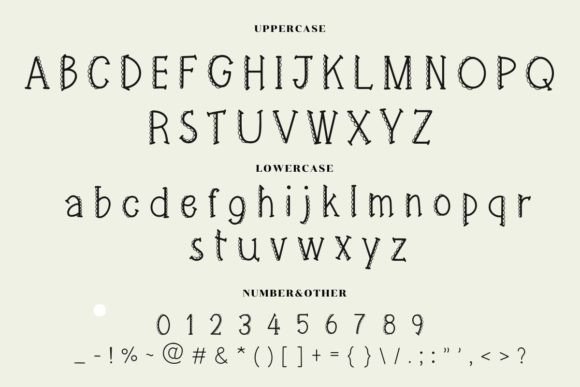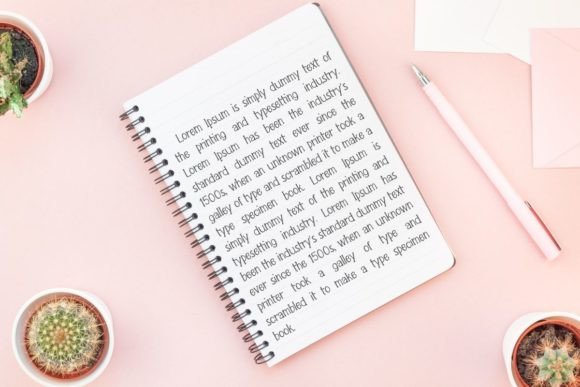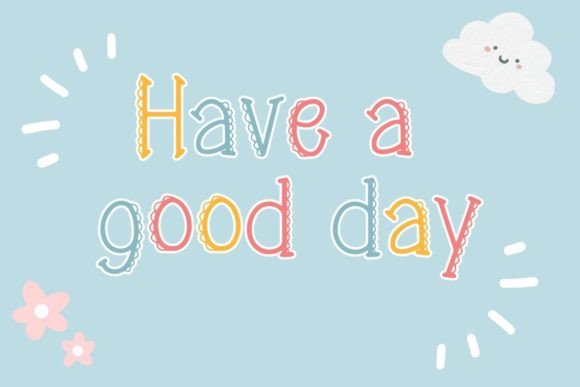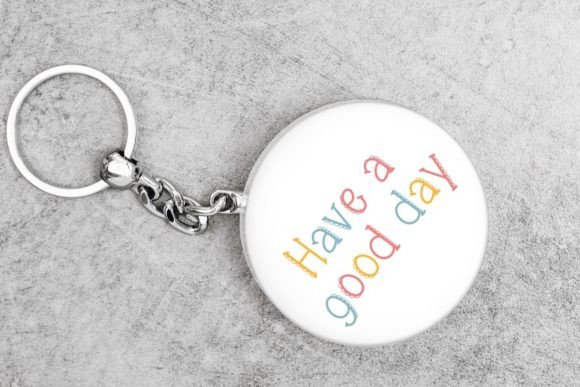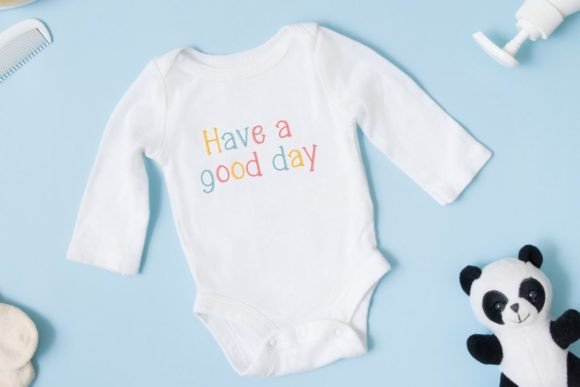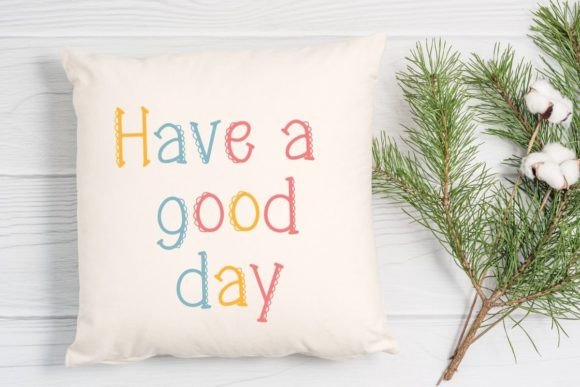
Dinosaur Font: The Cute and Groovy Serif Font for Retro Designs
Are you a designer or crafter looking for a font that adds a touch of cuteness and retro charm to your designs? Look no further than the Dinosaur Font! This adorable serif font is perfect for creating fun and playful designs that are sure to delight kids and adults alike.
What Makes Dinosaur Font So Special?
Dinosaur Font is a unique and quirky font that combines the charm of a serif font with a groovy and funny vibe. Its cute and endearing design makes it perfect for a wide range of projects, from back to school designs and kids’ crafts to birthday invitations and summer-themed designs.
Perfect for Retro-Inspired Designs
One of the standout features of Dinosaur Font is its retro charm. The font’s playful and whimsical design is reminiscent of classic designs from the 60s and 70s, making it perfect for adding a touch of nostalgia to your designs. Whether you’re creating t-shirt designs, stickers, or sublimations, Dinosaur Font is sure to add a fun and funky touch.
The versatility of Dinosaur Font is one of its greatest strengths. This font can be used for a wide range of design projects, including:
- Back to school designs: Create fun and engaging designs for school supplies, posters, and more.
- Kids’ designs: Perfect for children’s birthday parties, nursery decor, and kids’ clothing.
- Birthday invitations: Add a playful touch to your party invitations and make them stand out.
- Summer designs: Create fun and colorful designs for summer-themed projects, such as beach balls, sunglasses, and more.
- T-shirt designs: Add a groovy touch to your t-shirt designs and make them wearable art.
- Crafting: Use Dinosaur Font to add a personal touch to your craft projects, such as scrapbooking, card making, and more.
- Stickers: Create fun and colorful stickers that are perfect for kids and adults alike.
- Sublimations: Use Dinosaur Font to create vibrant and eye-catching sublimation designs for ceramics, fabric, and more.
Why Designers and Crafters Love Dinosaur Font
So, why do designers and crafters love Dinosaur Font? Here are just a few reasons:
- Easy to read: Despite its playful design, Dinosaur Font is easy to read, making it perfect for designs that require a clear and legible font.
- Highly versatile: Dinosaur Font can be used for a wide range of design projects, from digital designs to print projects.
- Cute and charming: The font’s cute and charming design is sure to delight kids and adults alike.
- Retro charm: Dinosaur Font’s retro charm adds a touch of nostalgia to your designs, making them stand out from the crowd.
Get Creative with Dinosaur Font
In conclusion, Dinosaur Font is a unique and quirky font that is perfect for designers and crafters looking to add a touch of cuteness and retro charm to their designs. With its highly versatile design and endless possibilities, this font is sure to become a go-to choice for a wide range of design projects. So, go ahead and get creative with Dinosaur Font – your designs will thank you!